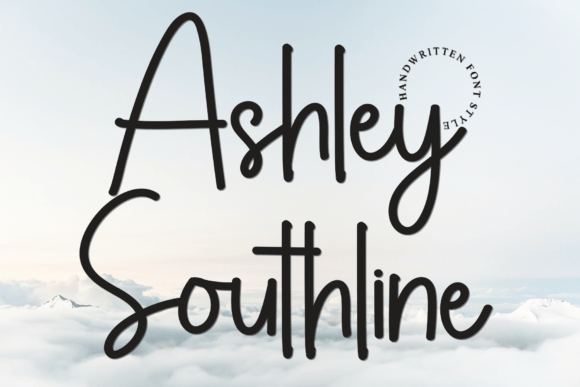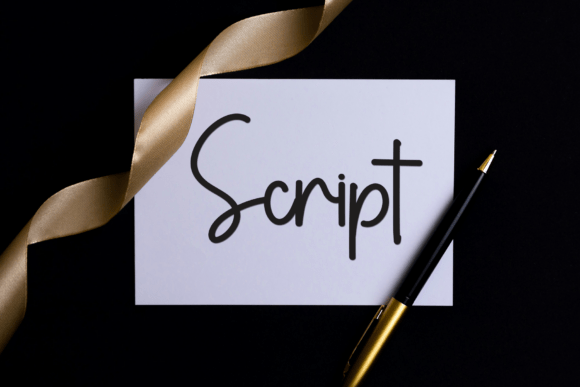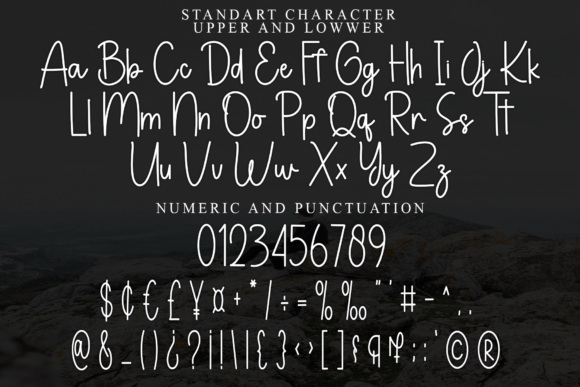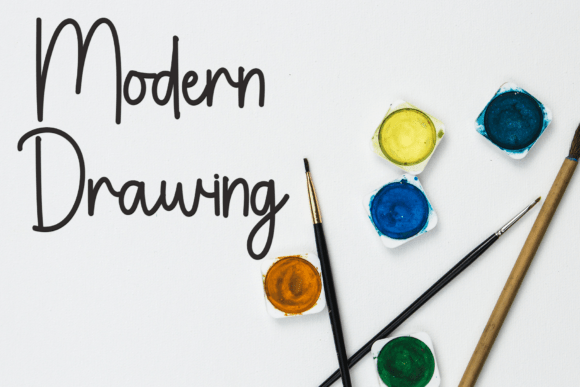
Ashley Southline Font
About the Ashley Southline Font
Welcome to the world of Ashley Southline Font, a typeface that will inspire your next great project. Ashley Southline is a lovely and timeless handwritten font. It is the best choice for creating eye catching logos, branding and quotes. Every letter has a unique and beautiful touch, which will make your design come alive!
Its elegant, slightly whimsical style makes it ideal for logos, branding projects aiming for a sophisticated yet approachable feel, short quotes on social media, and wedding invitations. Ashley Southline excels in applications requiring a touch of handwritten charm but would be less suitable for large blocks of body text or UI elements where readability is paramount.
Pairing it with a clean sans-serif like Lato or Open Sans provides a strong contrast and enhances readability when used alongside Ashley Southline in logos or headlines. For a more vintage feel, a serif typeface such as Playfair Display could complement its handwritten quality. Avoid pairing it with other script fonts, as this could create visual clutter.
Ashley Southline projects a personality that is both refined and friendly, conveying a sense of warmth and approachability without sacrificing sophistication. It’s best suited for brands focusing on lifestyle, fashion, beauty, or artisanal products.